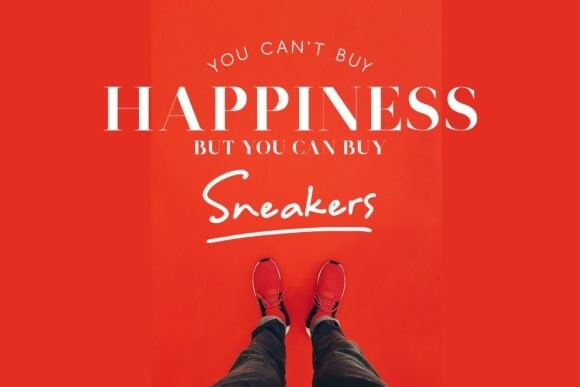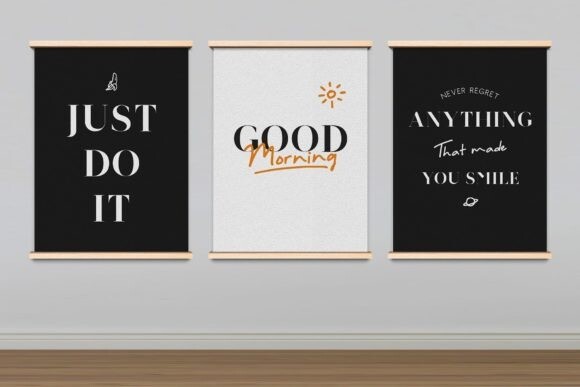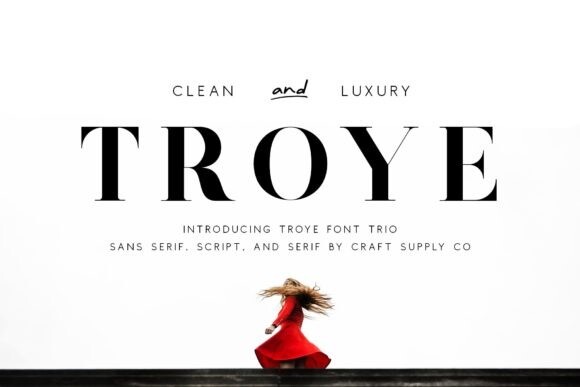
Troye Trio Font
Troye Trio Font is a modern serif font, clean sans serif font and script font. The style of Troye refers us to the style of modern sans serifs. The distinctive features of Troye are the relatively low contrast of strokes, the slightly squarish shapes of round characters and the emphasized business like simplicity.
Troye has been crafted from scratch with a structural logic of its own: a fusion of pure geometry and optical balance. By combining a variety of styles Troye is suitable for logos, greeting cards, quotes, posters, branding, name cards, stationary, design titles, blog headers, art quotes, typography, and any other design that needs a pretty and trendy look.